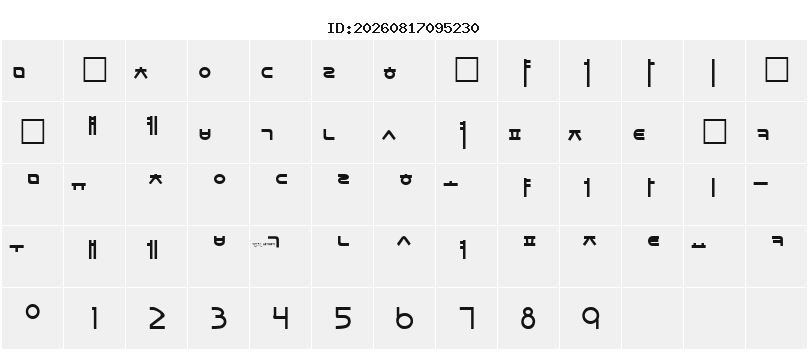
• Font Name: Sorawin
• Font Style: Plain
• Full Font Name: Sorawin Plain
About Sorawin.ttf
Sorawin.ttf is a modern, elegant sans-serif font designed for ultimate readability and visual harmony. Perfect for branding, headlines, web design, and print materials.